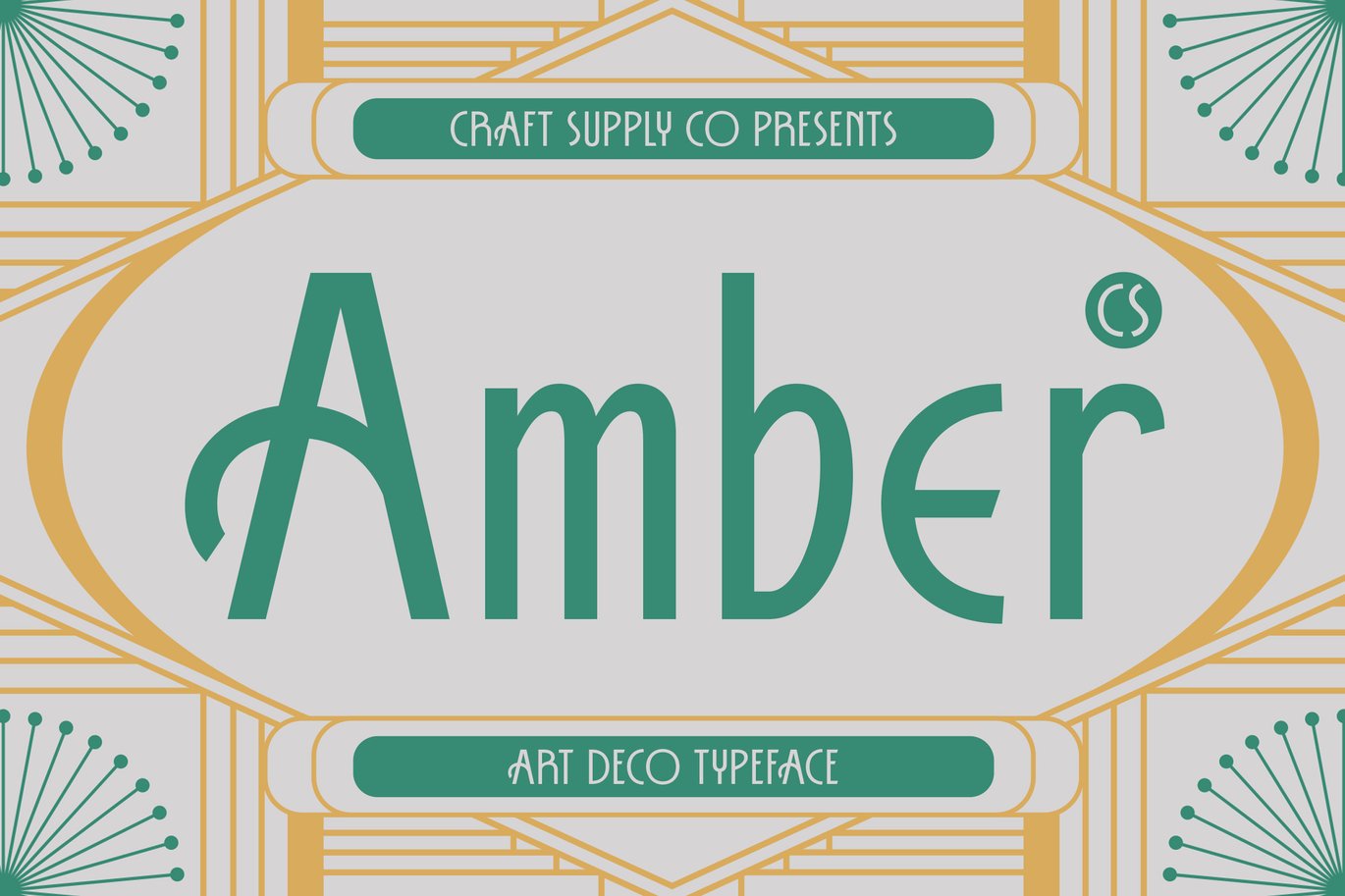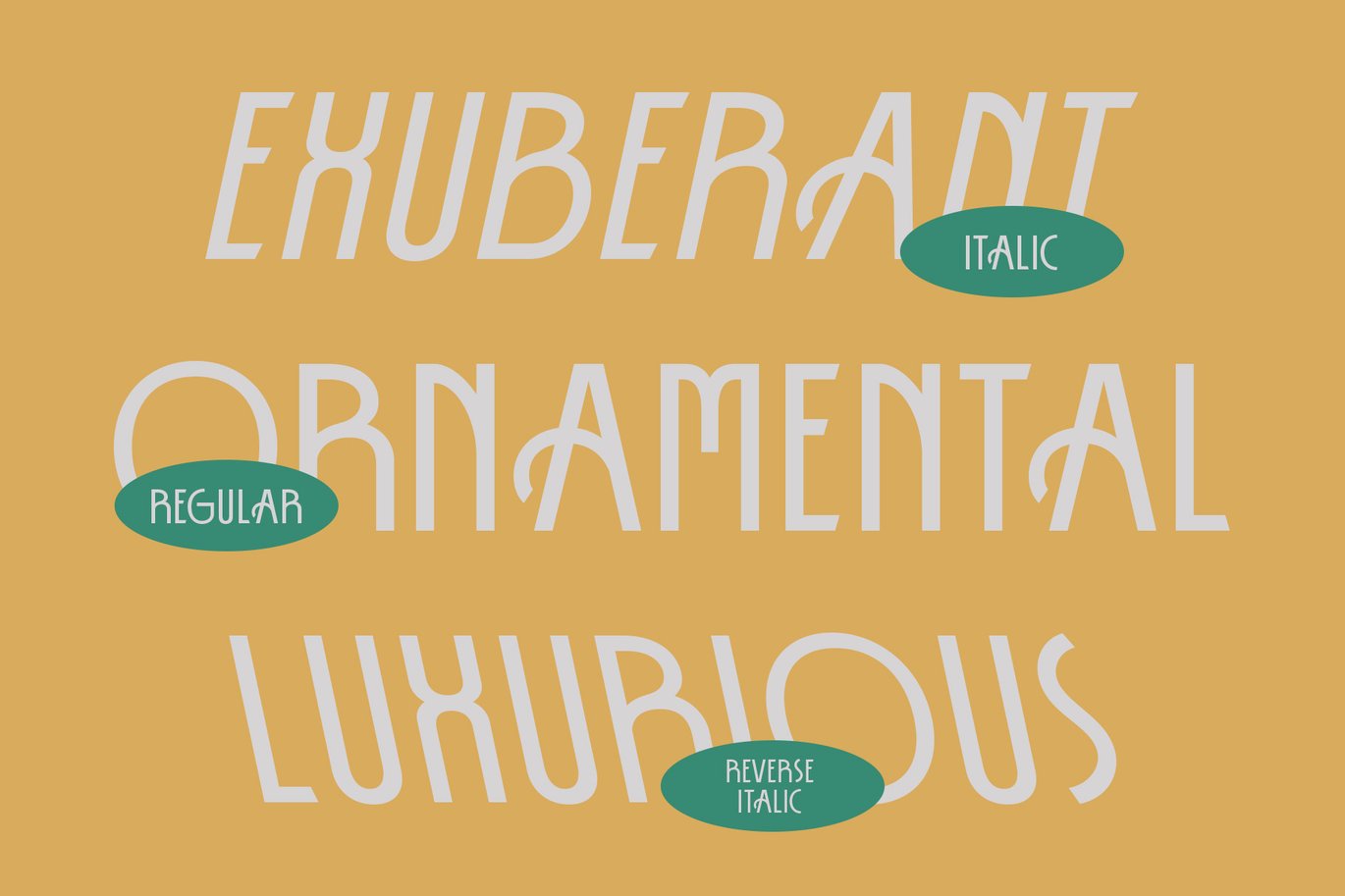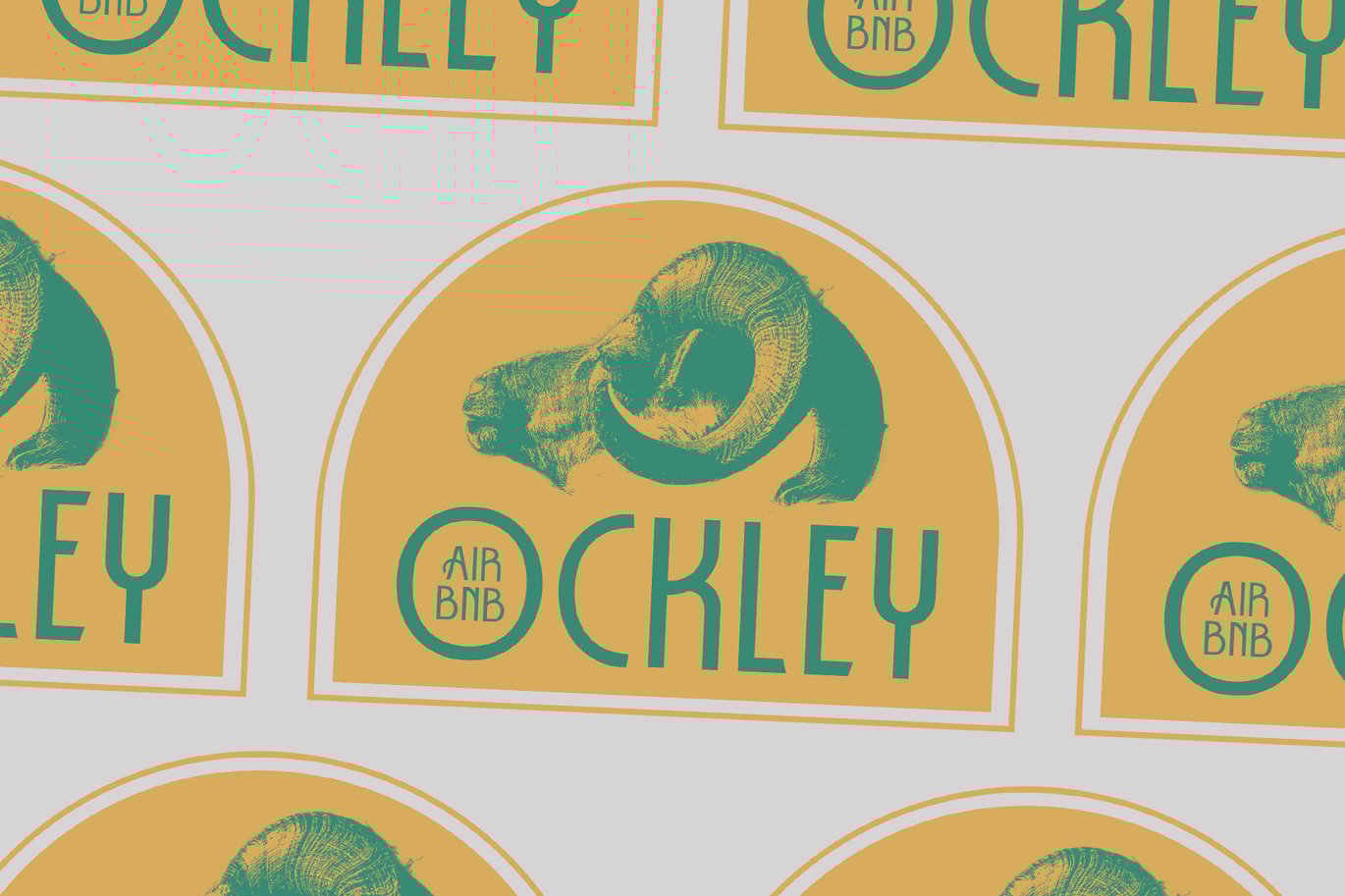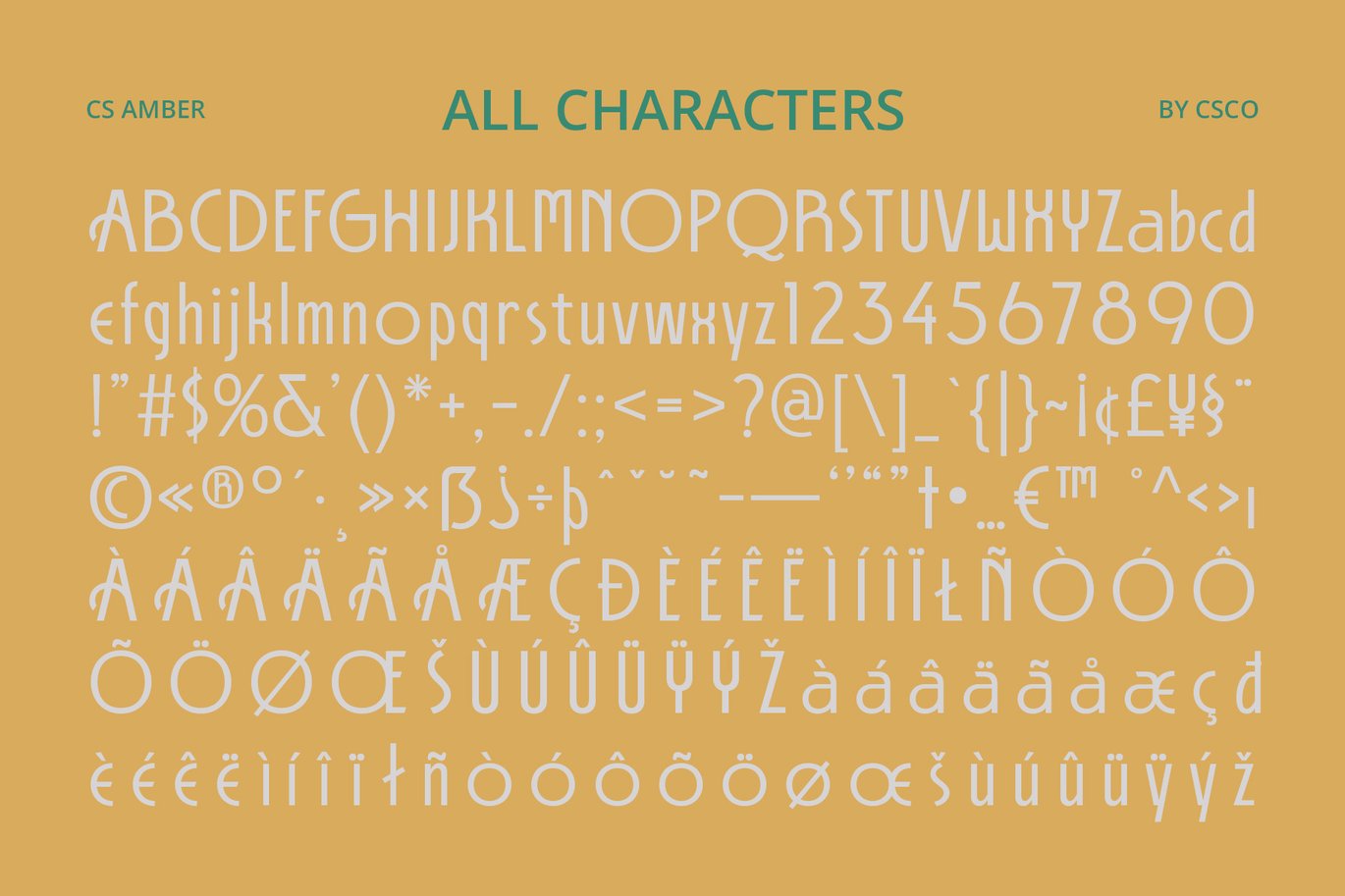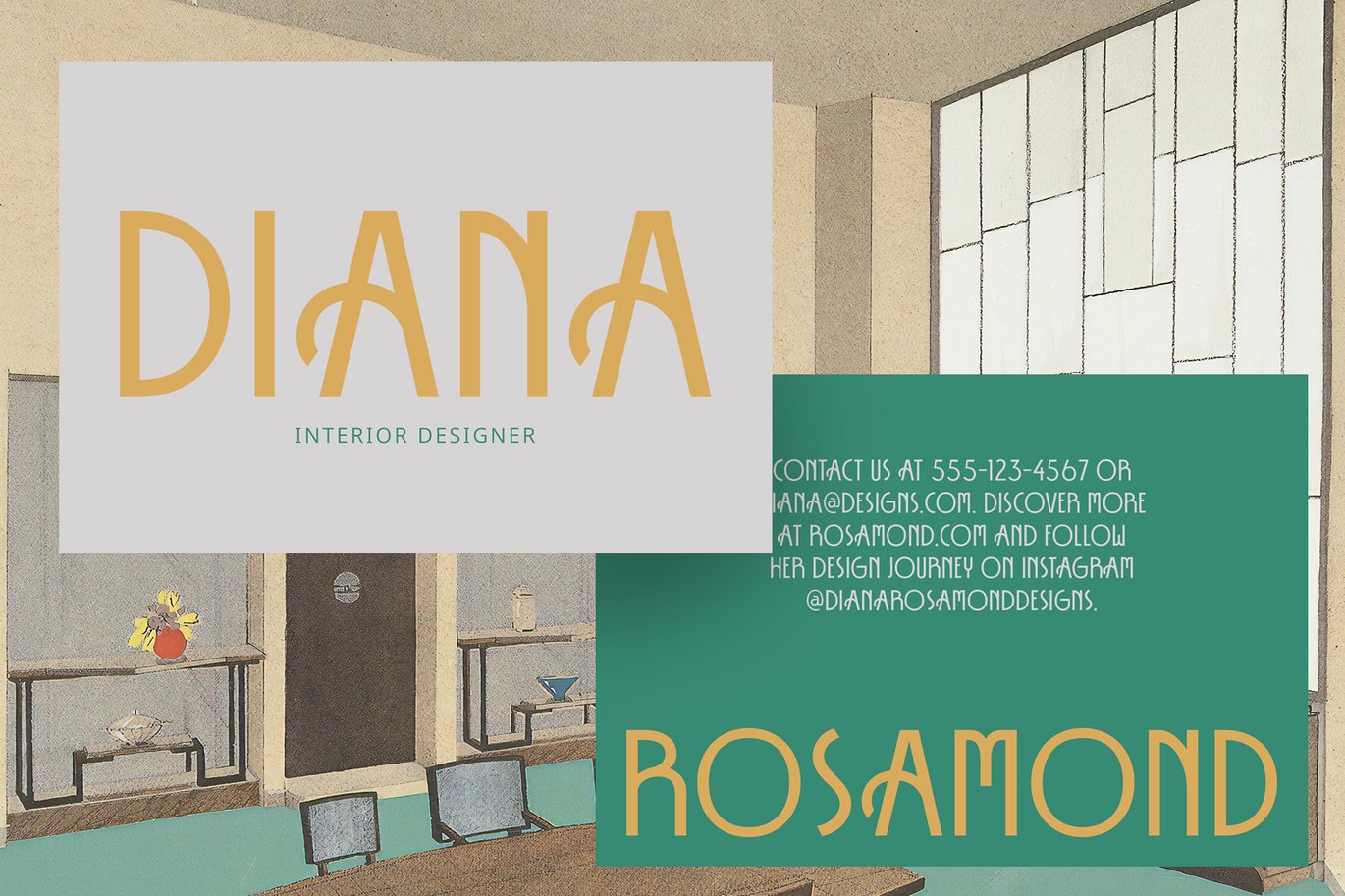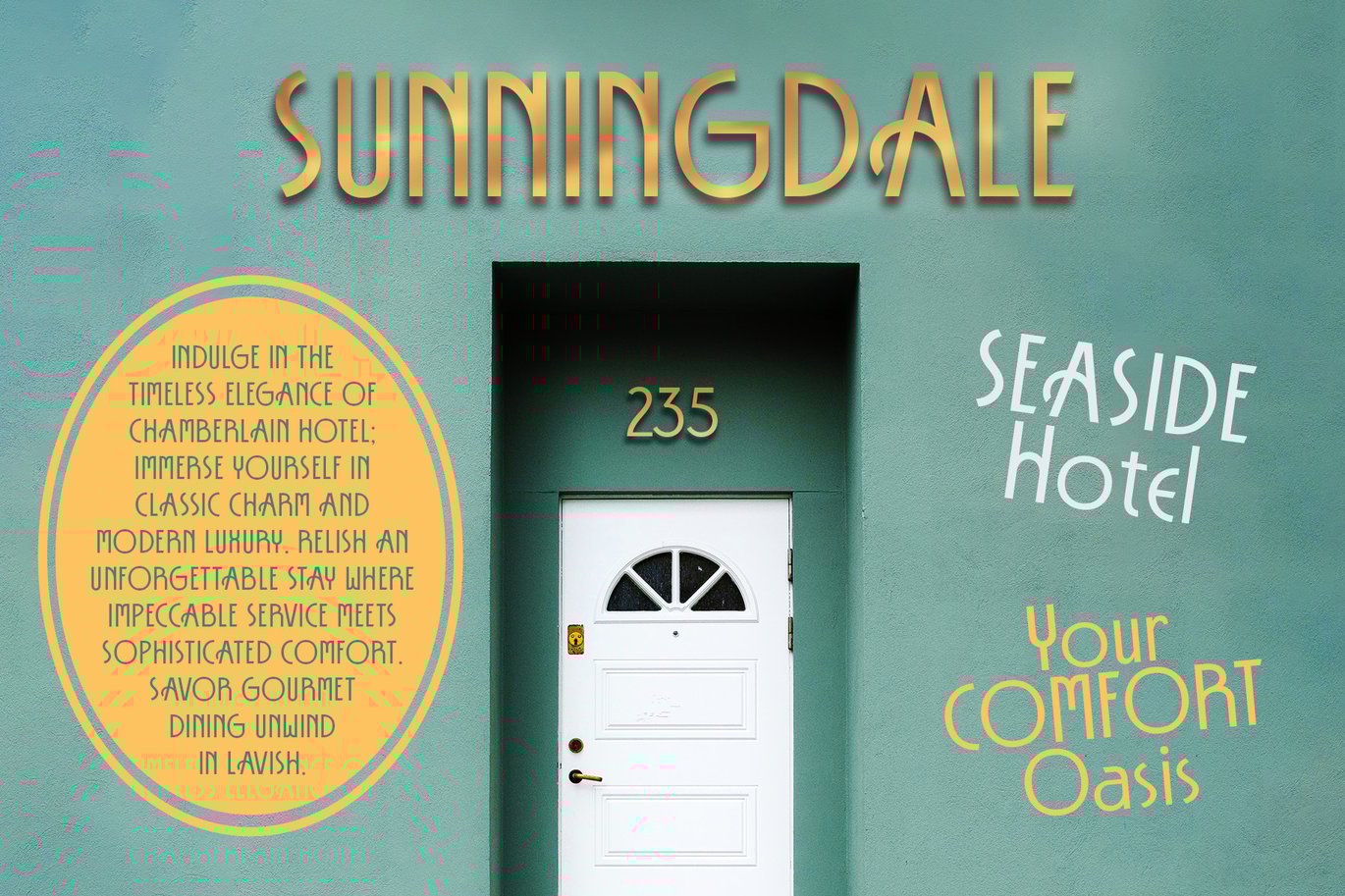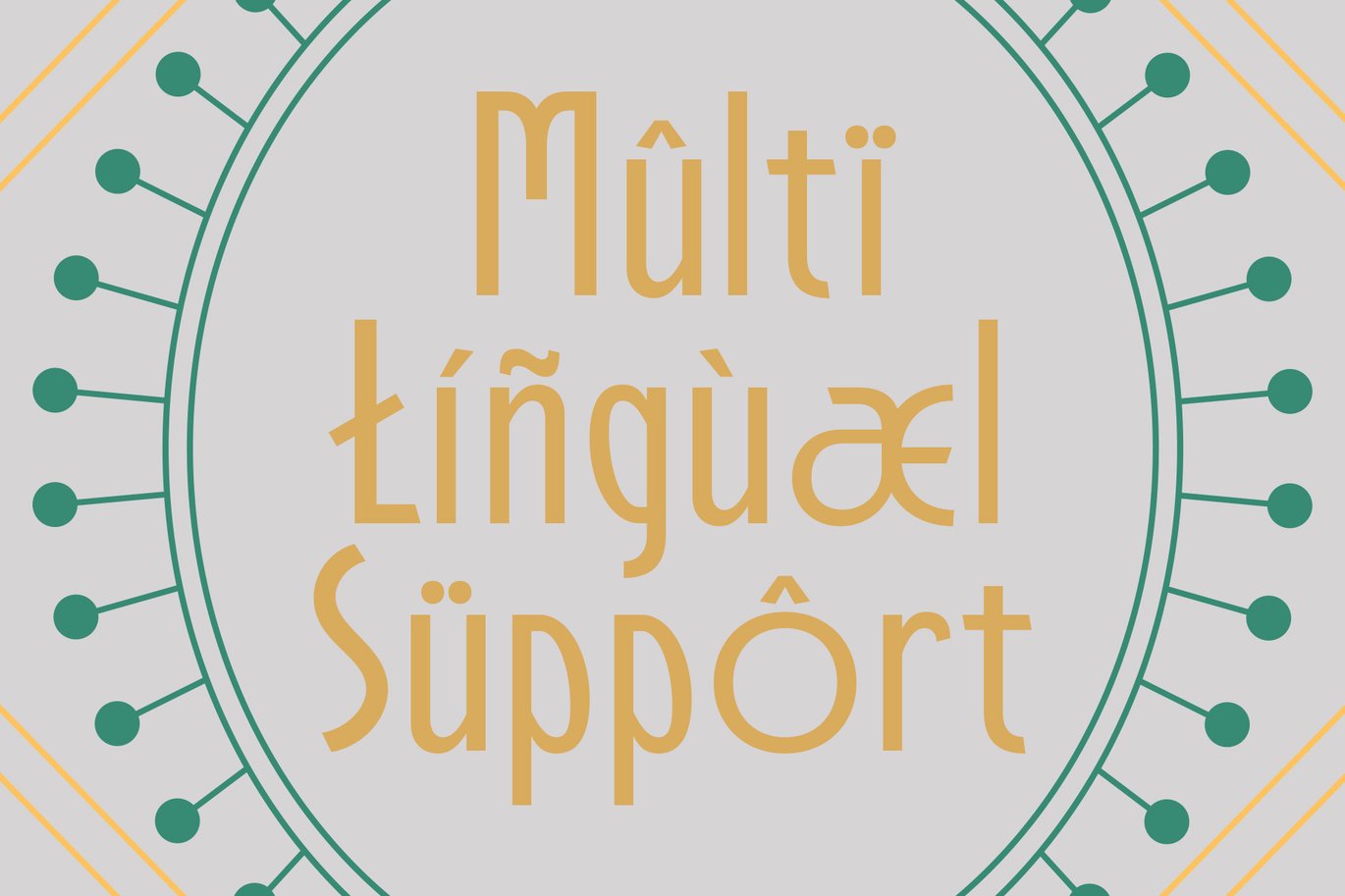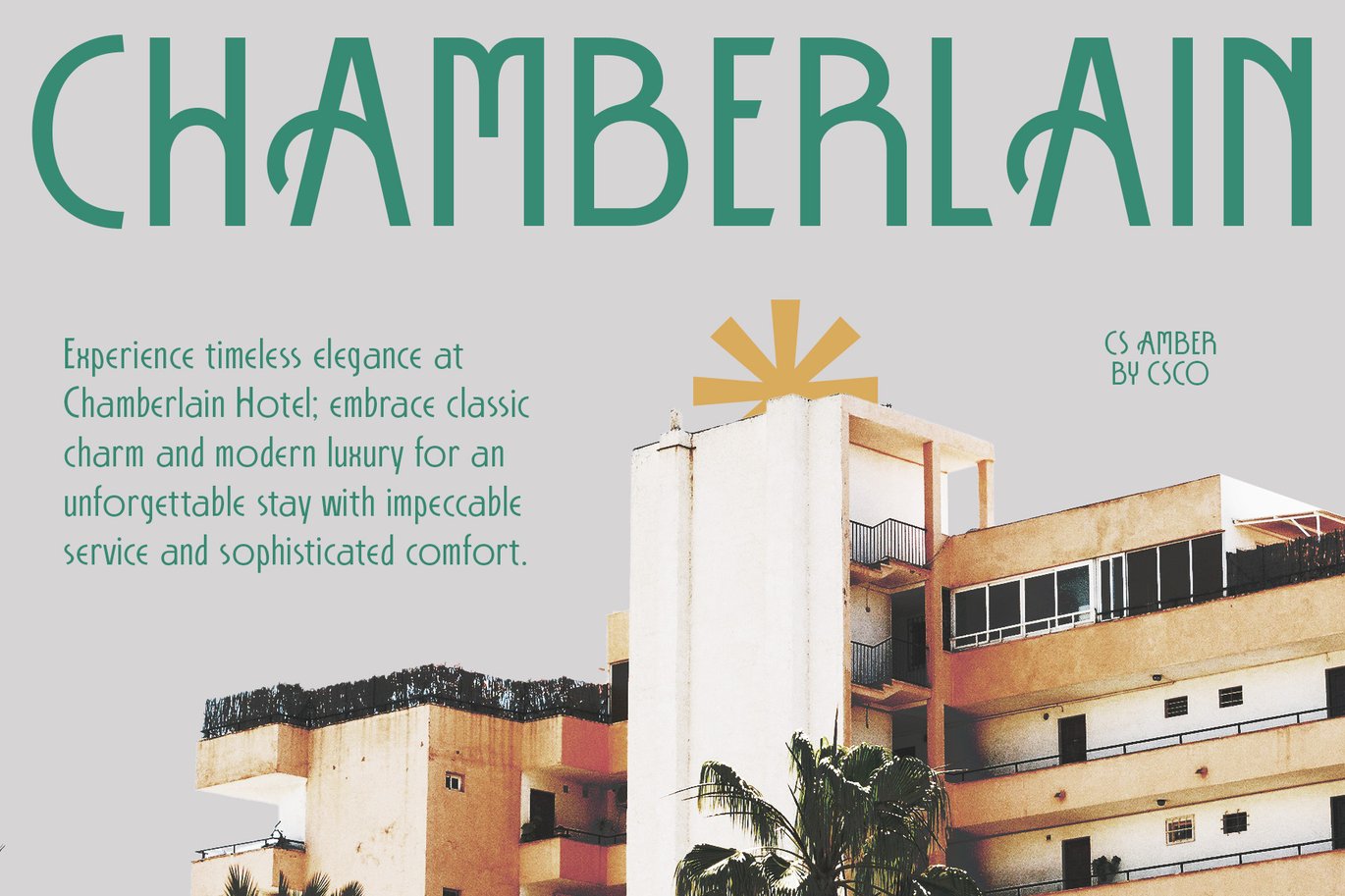
CS Amber – Art Deco Font
CS Amber – Elegant Art Deco Font
Elegance, Glamour, and Luxury
CS Amber is a sans serif font that captures the essence of Art Deco styling, exuding an air of elegance, glamour, and luxury. Inspired by the opulent designs of the early 20th century, this font features clean lines and symmetrical shapes that create a sense of sophistication and grandeur. The decorative elements add a touch of classic charm, making it perfect for designs that require a prestigious and refined look.
Classic Yet Modern Appeal
Characterized by its balanced proportions and intricate detailing, CS Amber seamlessly blends a vintage feel with contemporary aesthetics. The font’s design pays homage to the timeless beauty of Art Deco, while its modern touches ensure it remains relevant and stylish. This combination of old and new makes it a versatile choice for various design applications, from formal invitations to luxury branding.
Versatile and Timeless
CS Amber’s Art Deco styling makes it a versatile and timeless choice for designers. Its clean, symmetrical shapes and decorative elements provide a classic look that remains fresh and modern. Suitable for a wide range of applications, from luxury packaging to stylish website headers, CS Amber is the go-to font for projects that need to convey elegance, sophistication, and a touch of vintage charm.